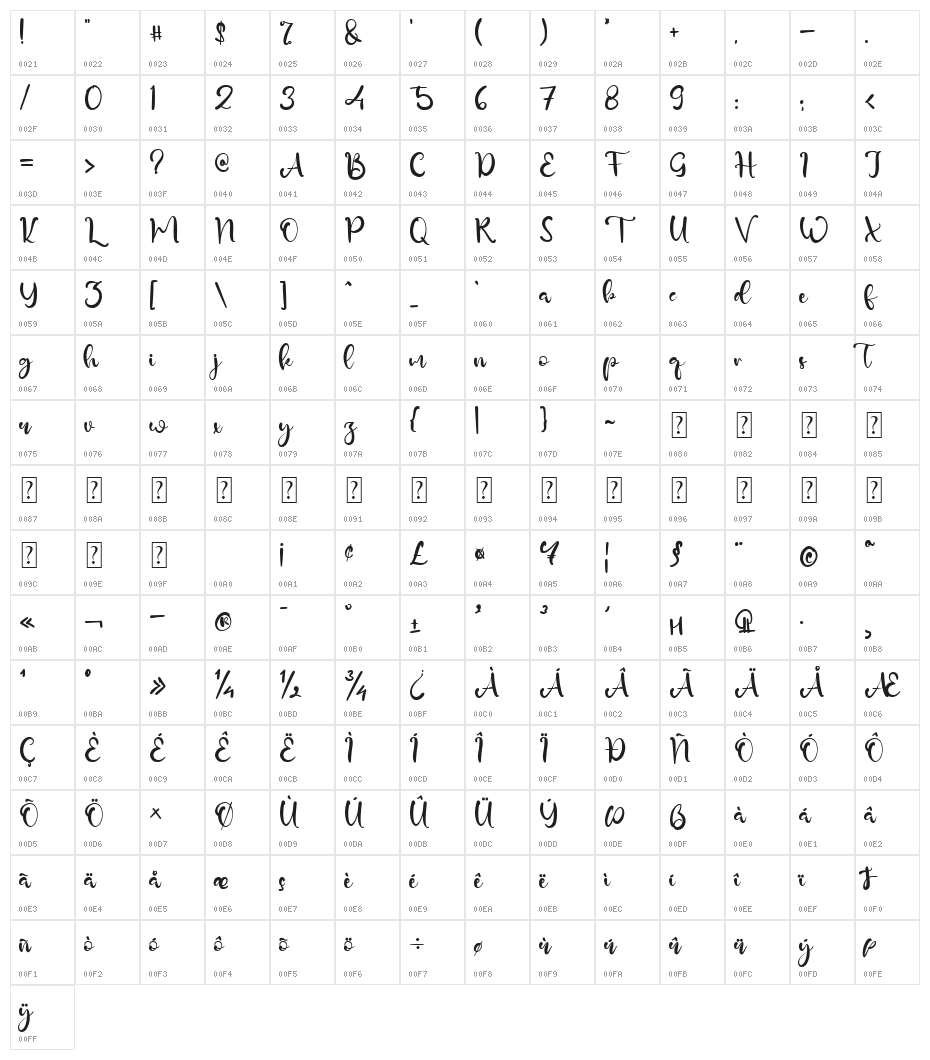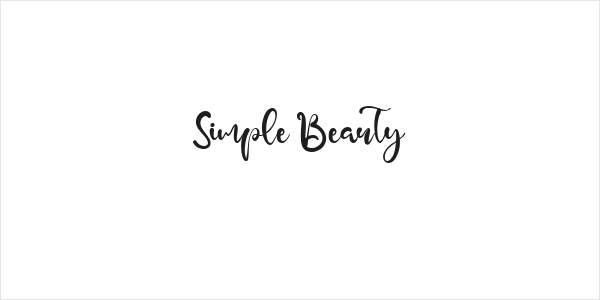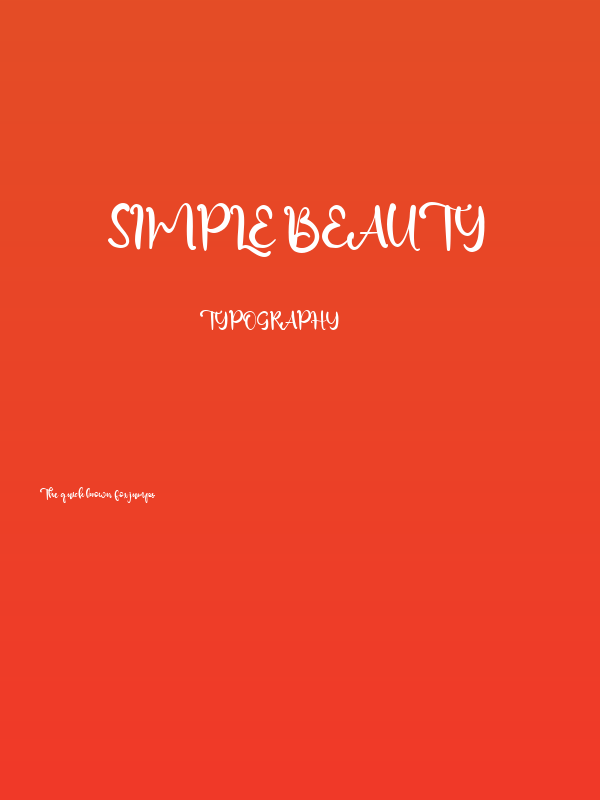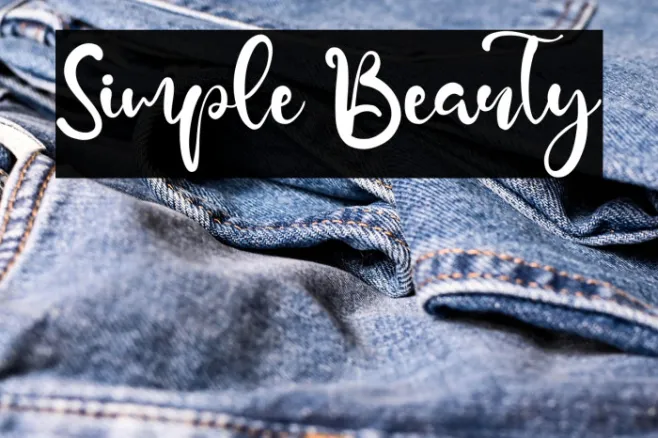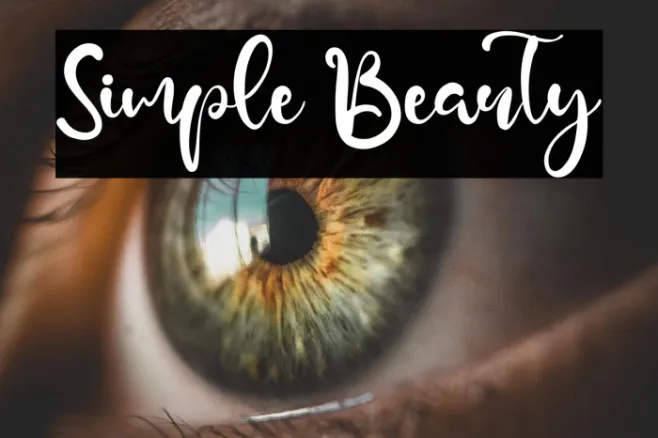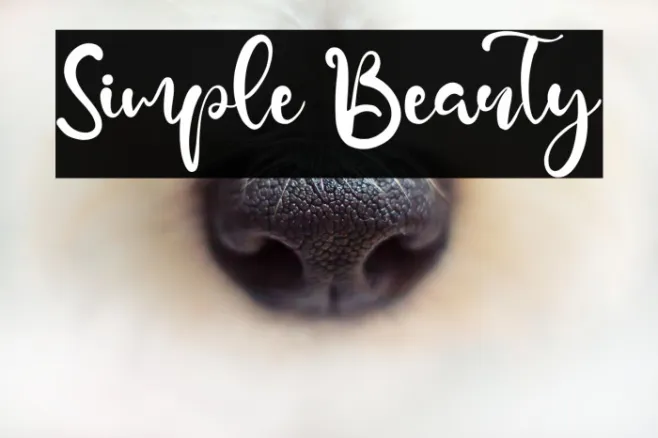
Simple Beauty Font
Simple Beauty Description
This font features a flowing, cursive style with a playful and elegant appearance. The uppercase letters are bold and sweeping, with a distinct flair that adds a touch of sophistication. The lowercase letters maintain a consistent flow, enhancing readability while retaining a hand-drawn charm. Numbers and special characters are designed to complement the overall style, making them suitable for a variety of design contexts. The strokes are smooth and rounded, giving the font a friendly and approachable feel. This font is ideal for projects that require a personal touch, such as invitations, greeting cards, and branding materials.
| Proposed Projects | Ideal for invitations, greeting cards, branding, and decorative projects. |